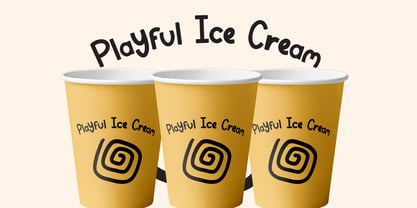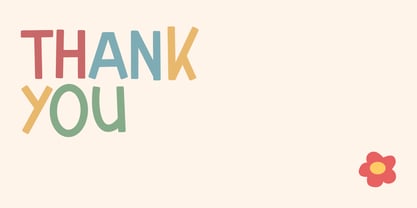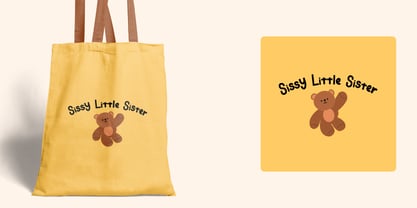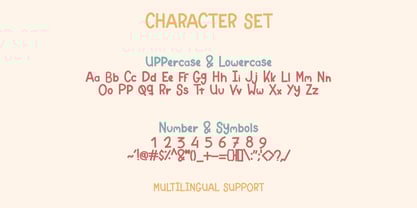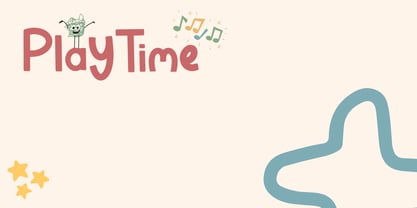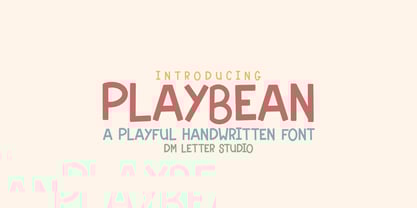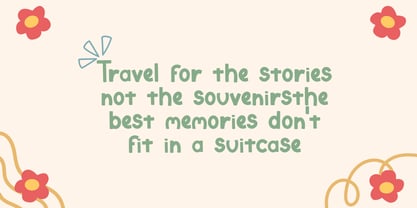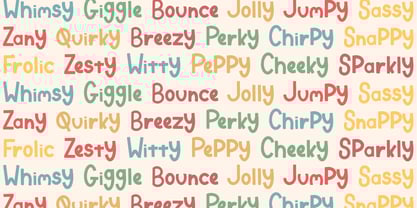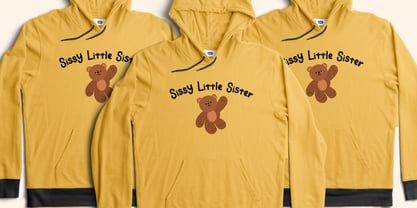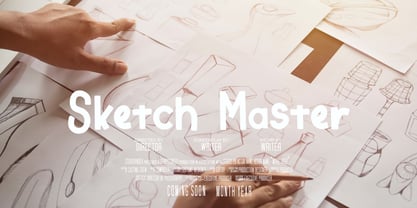
Playbean
by DM Studio
The Playbean Font Family was designed by Dimas Prasetyo and published by DM Studio. Playbean contains 1 styles.
Playbean – Playful Handwritten Font with a Bubbly Personality
Playbean is a cheerful and carefree handwritten font with rounded strokes and bouncy movement. Its soft, playful shapes make it perfect for kids’ designs, logos, product packaging, social media graphics, and anything that needs a burst of fun energy. Whether you’re designing for print or digital, Playbean brings a sense of joy and friendliness to your project.
• Bubbly Handwritten Style: Rounded and slightly irregular shapes give a handmade, playful look.
• Perfect for Fun Projects: Great for kids’ books, stickers, branding, crafts, and social media.
• Smooth and Friendly Feel: Clean letterforms with soft curves for easy readability at all sizes.
• Complete Character Set: Includes uppercase, lowercase, numerals, punctuation, and multilingual support.